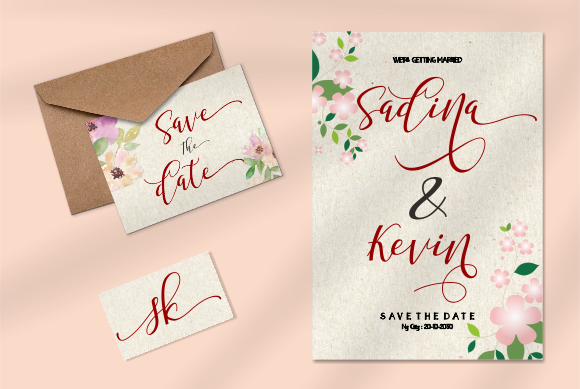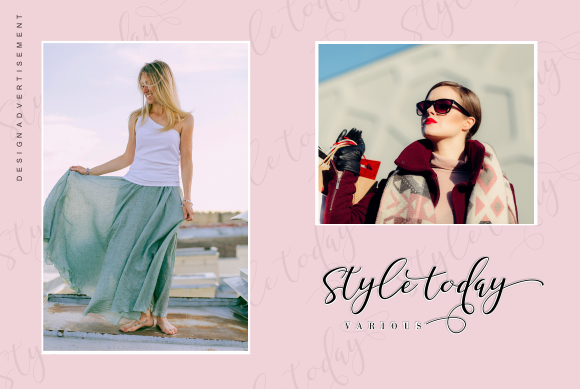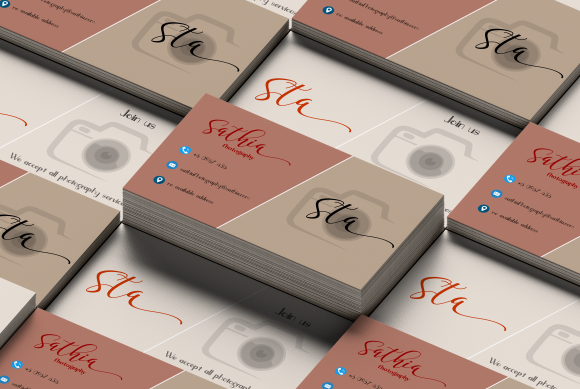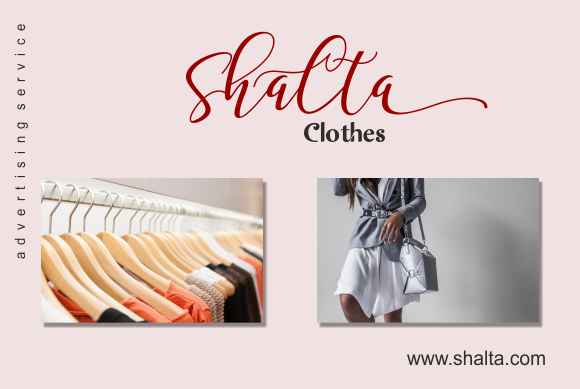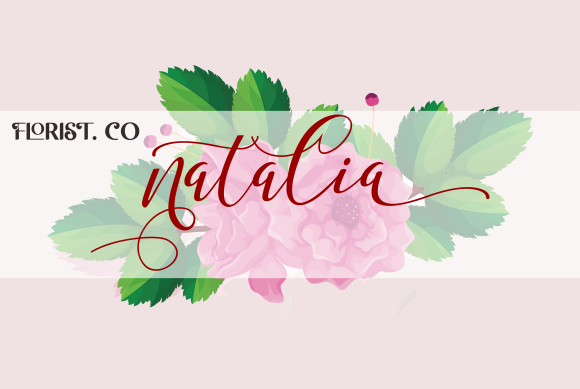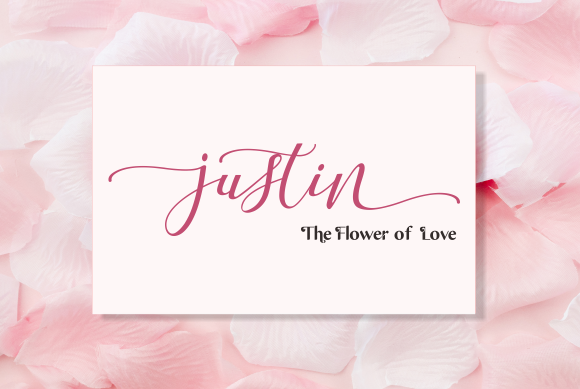
Introduction to Shany Font
Have you ever been working on a creative project, pouring your heart and soul into it, only to feel like something’s missing? That’s where a great design resource can make all the difference. For designers, finding the perfect font can elevate a project from good to great, and that’s exactly what the Shany Font does.
With its modern, handwritten style, the Shany Font brings a relaxed yet stylish appeal to any design. Its irregular and flowy letters seem to dance across the page, giving your creative project a unique and charming touch. Whether you’re working on a branding project or a social media campaign, the Shany Font is a valuable addition to any designer’s toolkit.
Key Features of Shany Font
- High-quality design resource ideal for creative projects, offering a unique and elegant style.
- Transparent background, making it easy to overlay on images or use as a standalone design element.
- Designed to be highly legible and readable, even at small font sizes, making it perfect for body text and headings.
Honest Review: Shany Font
As a designer, I’m always on the lookout for high-quality design resources to elevate my creative projects. Recently, I stumbled upon the Shany Font, which has been making waves in the design community.
One of the things that stands out about Shany Font is its versatility ✨. The font is available for free download and can be easily integrated into various design projects. Its clean and modern design makes it perfect for branding, marketing materials, and digital products.
Here are some of the key features that I appreciate about Shany Font:
- High-quality design that is suitable for various creative projects
- Transparent background, allowing for seamless integration with design elements
However, I do have a few concerns about Shany Font ⚠️:
- Limited character set, which may not be ideal for projects requiring a wide range of characters
- No bold or italic variations, which may limit its use in certain design contexts
Overall, I think Shany Font is a solid addition to any designer’s toolkit. While it may have some limitations, its high-quality design and free download make it a worthwhile resource for any creative project.
Shany Font is a high-quality design resource ideal for various creative projects. With its free download and transparent background, it offers flexibility and versatility in its application.
Tips for Getting the Most Out of Shany Font
Experiment with different font sizes and colors to achieve the desired visual effect.
Combine Shany Font with other design elements to create a unique and eye-catching design.
Shany Font is ideal for use in logos, branding materials, and marketing collateral.
It can also be used in digital design projects, such as social media graphics and website headers.
Alternatives to Shany Font
Great Vibes is a beautiful, elegant script font perfect for creative projects and design resources. It features a high-quality design with a transparent background, making it ideal for use on websites, social media, and marketing materials.
Use Great Vibes for: wedding invitations, event branding, and any project that requires a touch of sophistication.
Compared to Shany Font, Great Vibes has a more refined and polished look, making it a great choice for high-end design projects.
Alex Brush is a beautiful, handwritten font ideal for design resources and creative projects. It features a high-quality design with a transparent background, making it perfect for use on websites, social media, and marketing materials.
Use Alex Brush for: blog posts, social media graphics, and any project that requires a personal touch.
Compared to Shany Font, Alex Brush has a more whimsical and playful look, making it a great choice for projects that require a bit of personality.